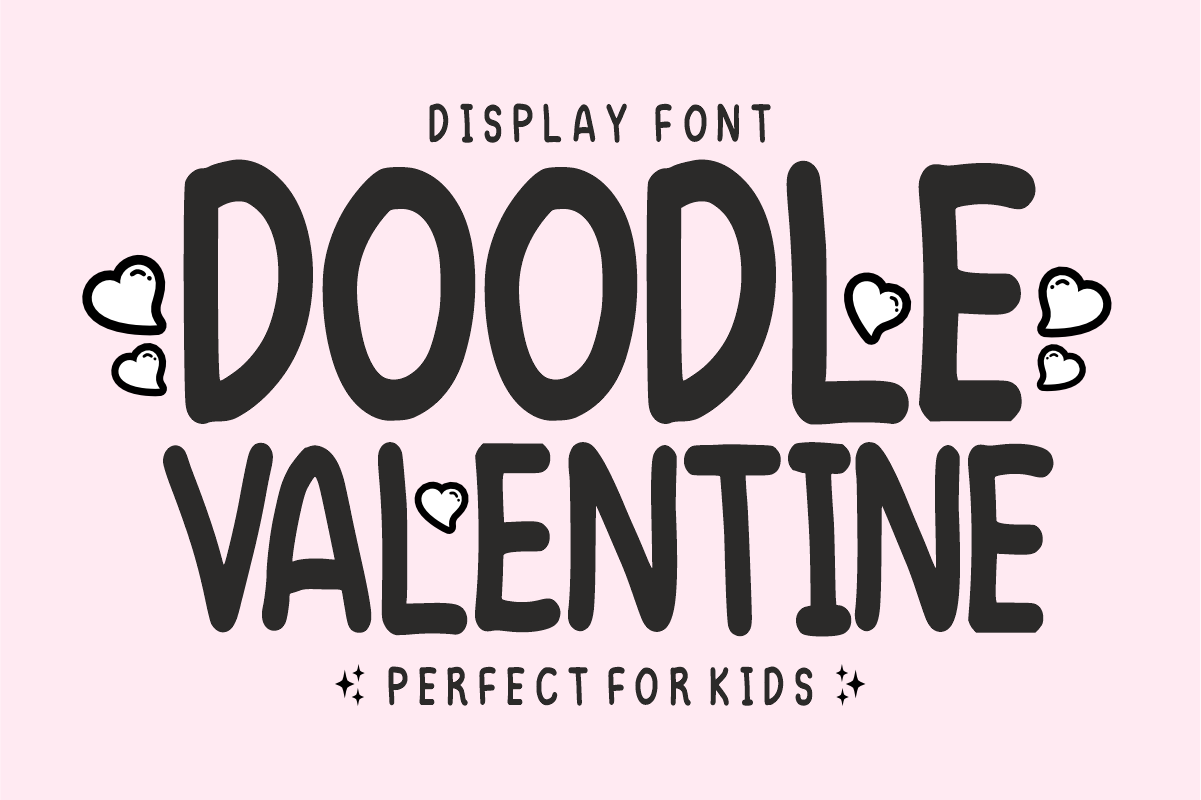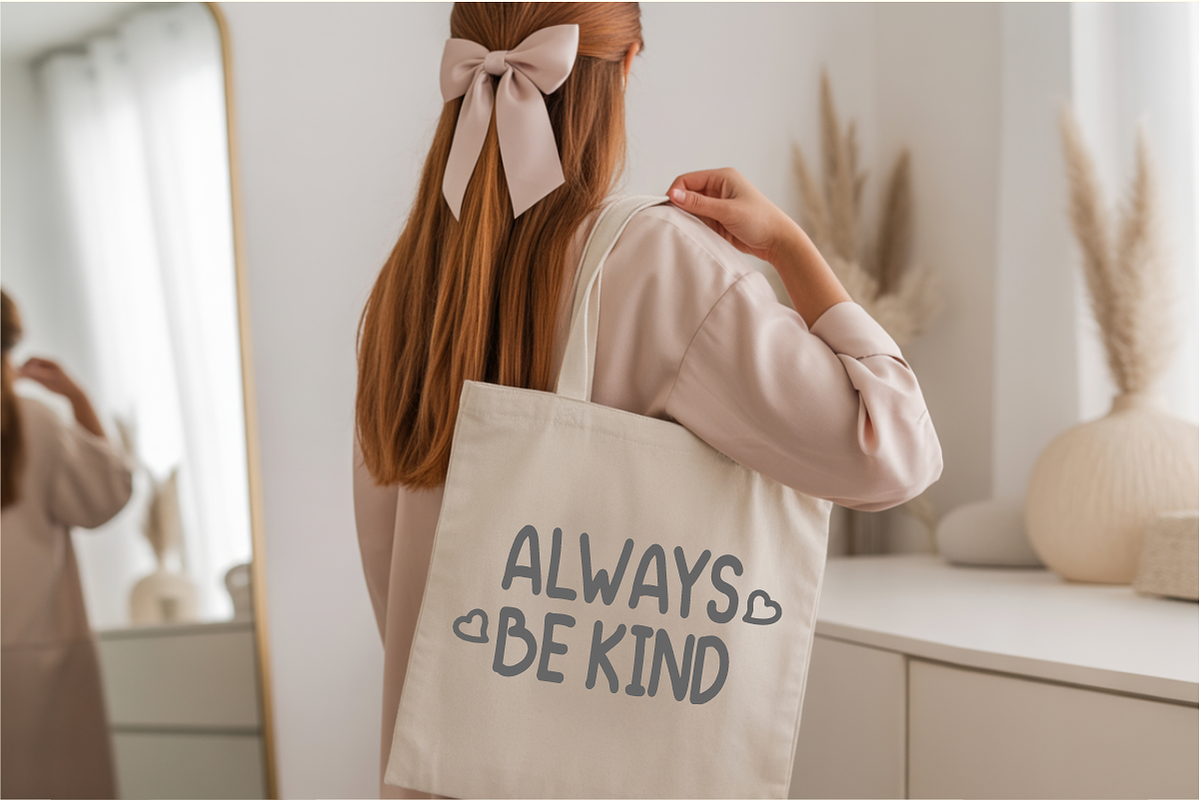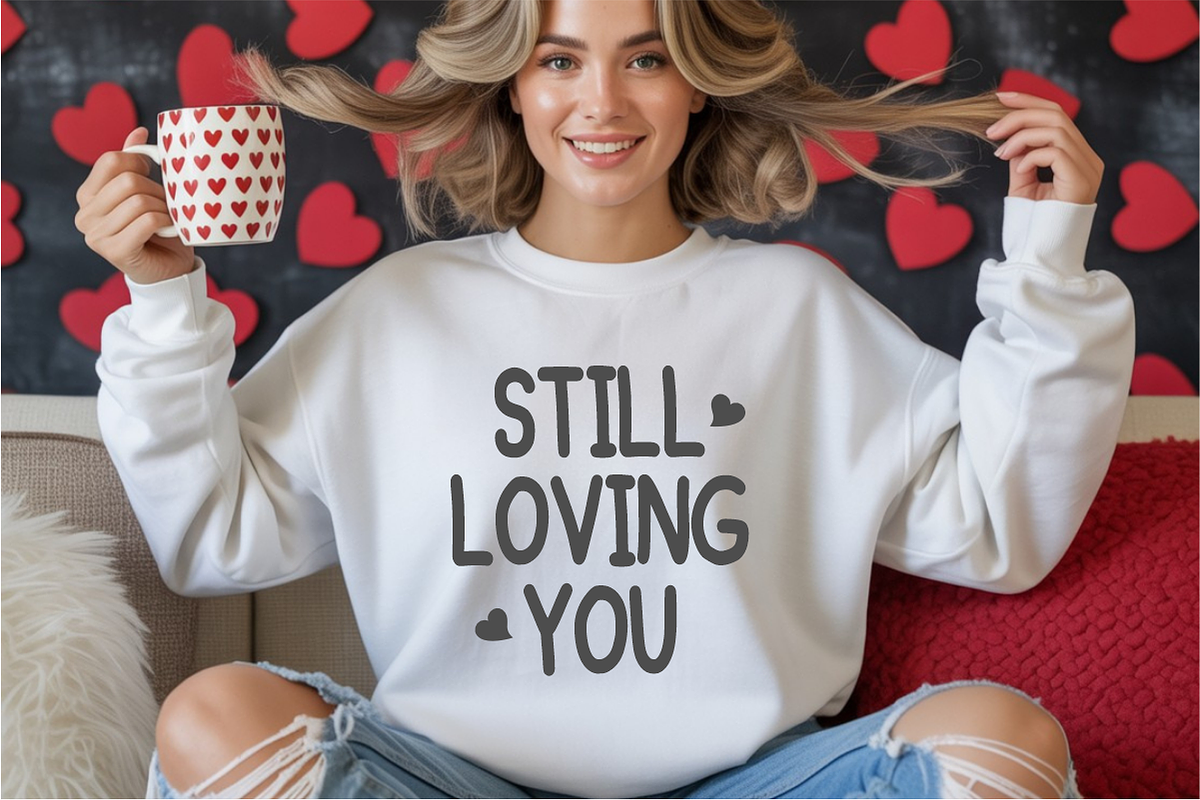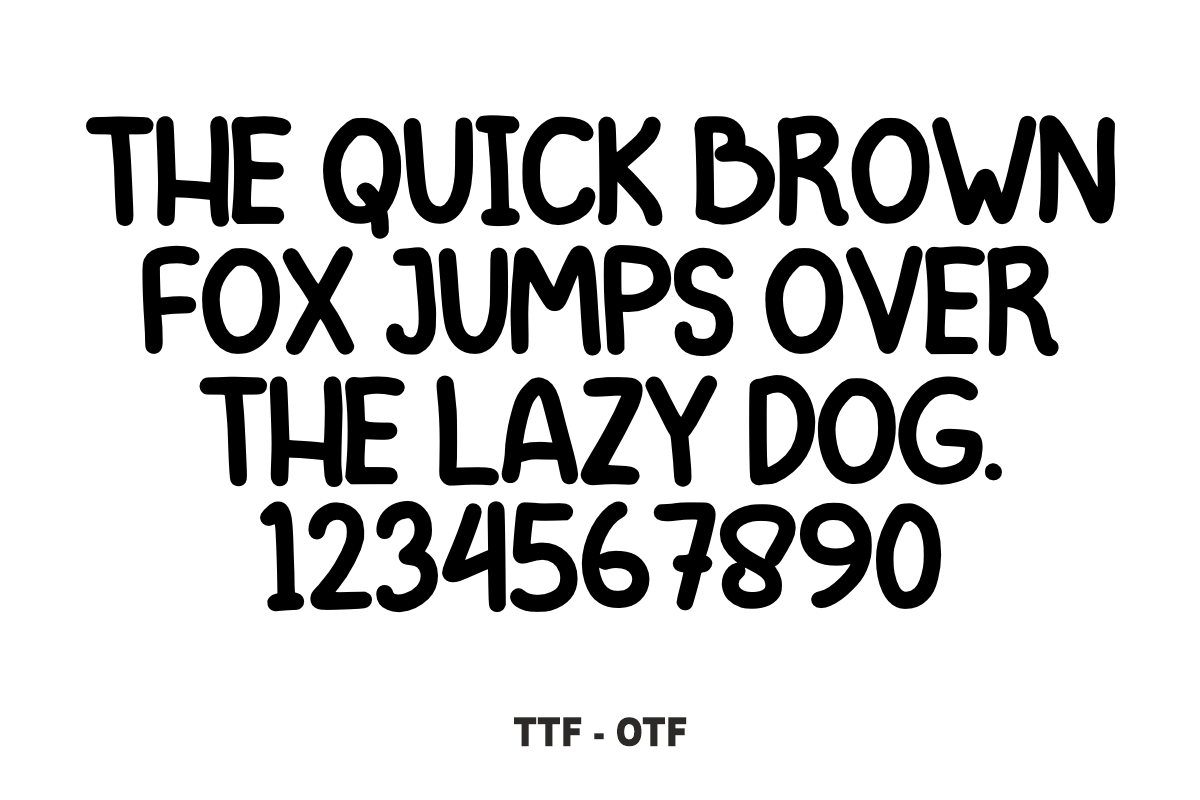
Doodle Valentine - Cute Kids Font
Doodle Valentine - Cute Kids Valentine Font
Doodle Valentine is a sweet, playful handwritten display font featuring tall, rounded letterforms paired with adorable doodle hearts. Perfect for Valentine's Day crafts, kids' apparel, classroom activities, and sweet greeting cards, this charming font adds a whimsical, loving touch to all your creative projects. Every character is cleanly vectorized to guarantee high-resolution prints and smooth, effortless cutting on Cricut and Silhouette machines.
Ideal For:
Cricut, Silhouette, and HTV vinyl cutting projects for Valentine's Day t-shirts, sweet tote bags, kids' apparel, and custom mugs
Teachers Pay Teachers (TpT) authors creating February classroom bulletin boards, student Valentine exchange cards, and fun learning worksheets
Etsy sellers designing love-themed greeting cards, anniversary prints, sweet stationery, and personalized gifts
Print-on-Demand (POD) products, children's storybooks, party decor, and cute lifestyle merchandise
Canva template creators making Valentine event flyers, school party invitations, and romantic social media graphics
Custom die-cut sticker packs, heart decals, and digital scrapbooking layouts